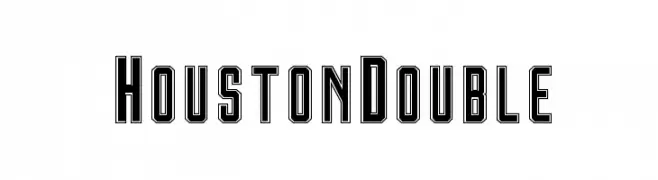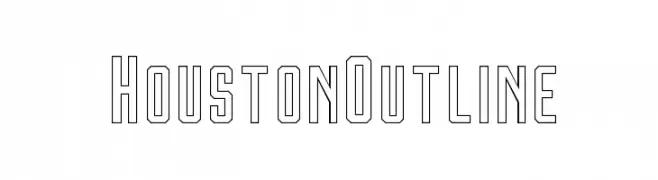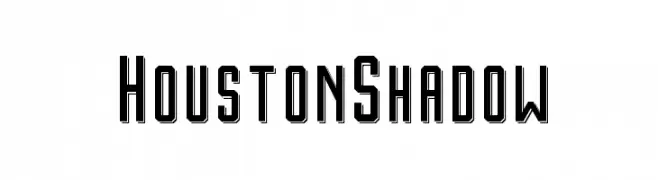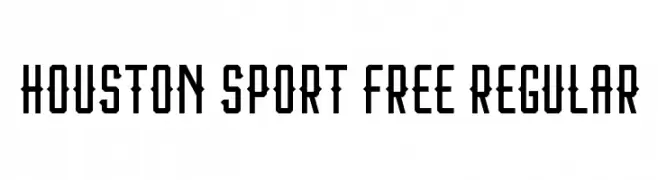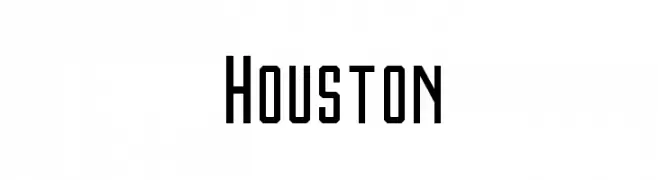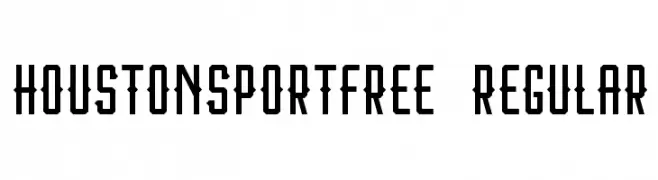
A bold, geometric font with strong, blocky letterforms ideal for impactful headlines.
A bold, geometric font with tall, narrow letters and sharp angles.
A bold, double-line font with a modern, industrial aesthetic.
A bold, geometric outline font with strong, angular lines and a modern aesthetic.
A bold, geometric font with a distinctive shadow effect for a modern, impactful look.
A bold, geometric font with a sporty, structured design.
A bold, geometric font with sharp angles and a modern sports aesthetic.